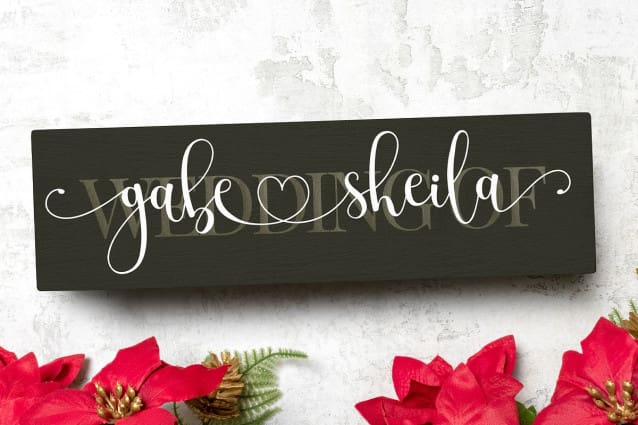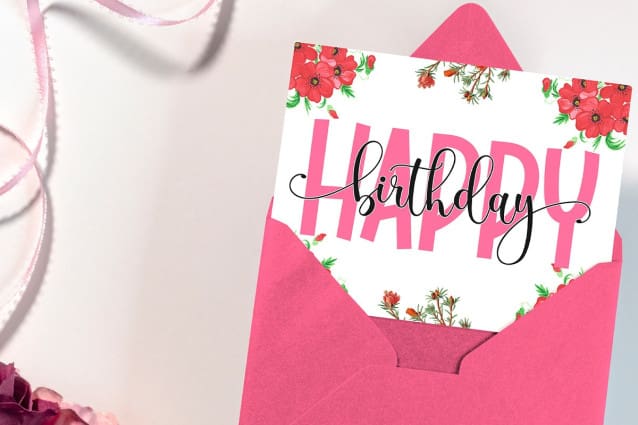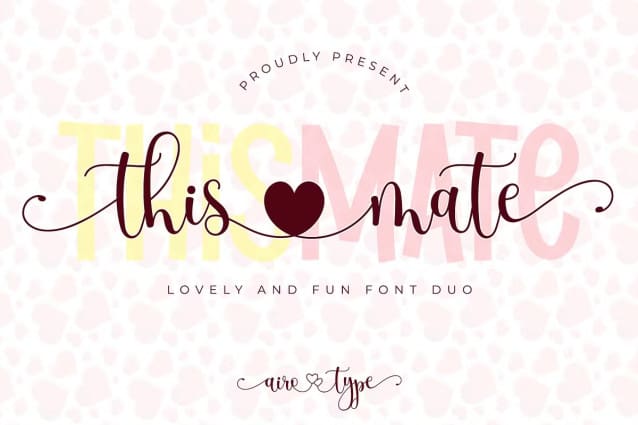
This Mate Font
This Mate Font is sweet and fun font duo. It has lovely touch with sweetness overload. It is so perfect for any project designs, such as wedding invitation, valentine’s day, logo, branding, social media, sticker, and so on.
This Mate included 2 fonts script and sans. The script one has heart swash or heart connection to make your design look more lovely. There are 4 types of hearts connection to give you more options in designing.